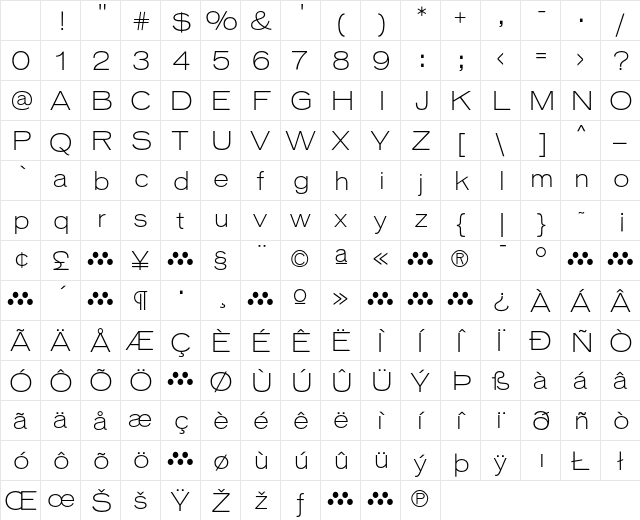
VonnesTTLightExt is a composed and adaptable typeface that performs quietly and consistently across a wide range of design contexts. Its slender proportions lend an understated elegance to any composition.